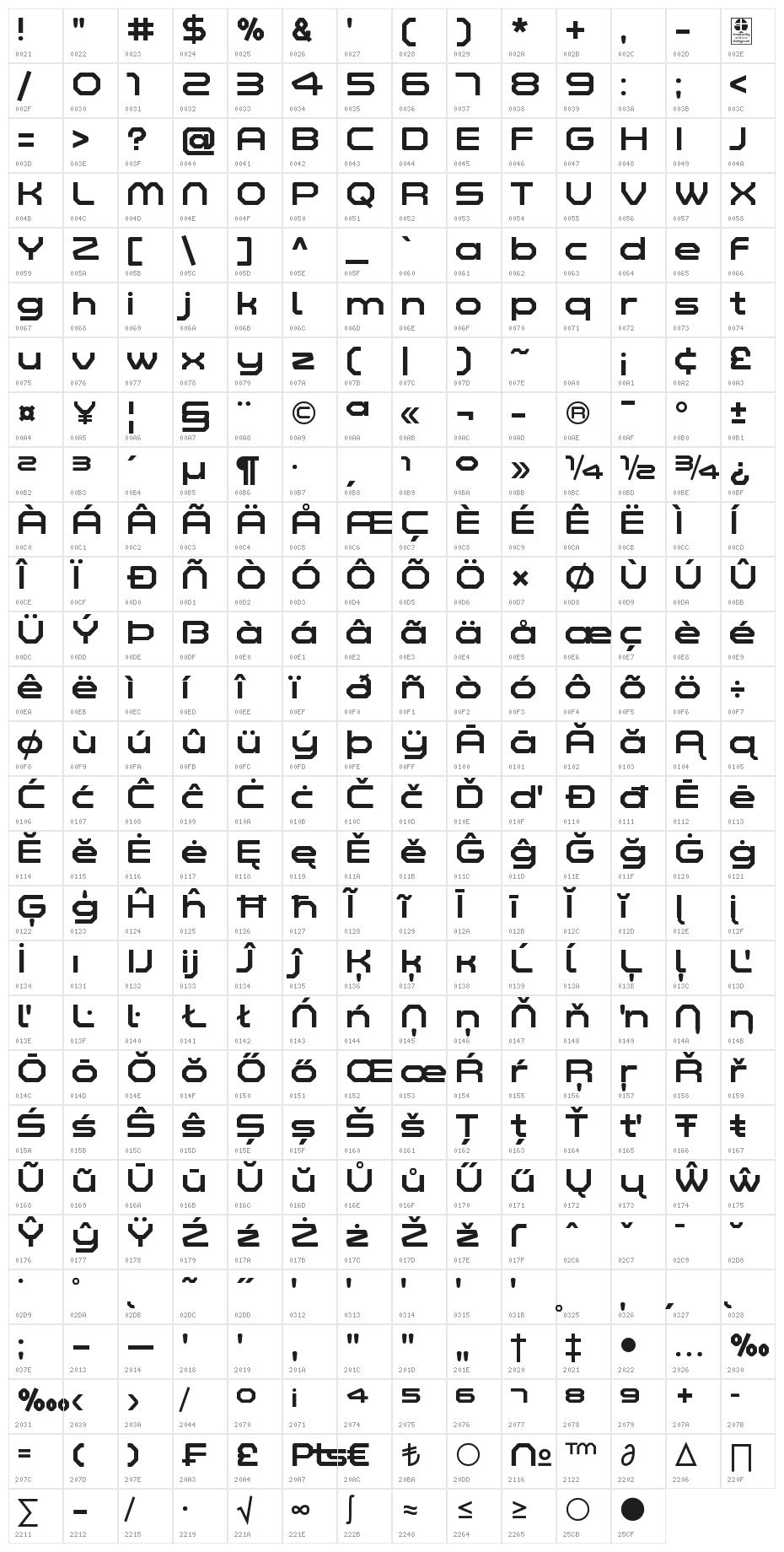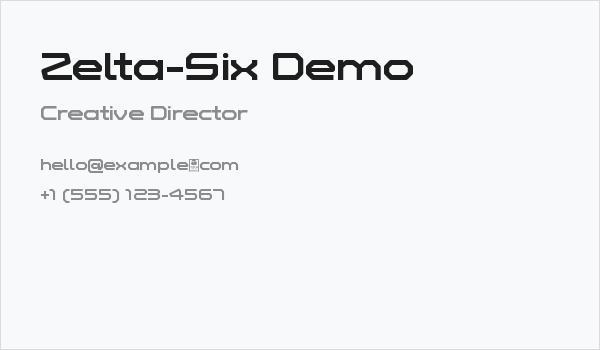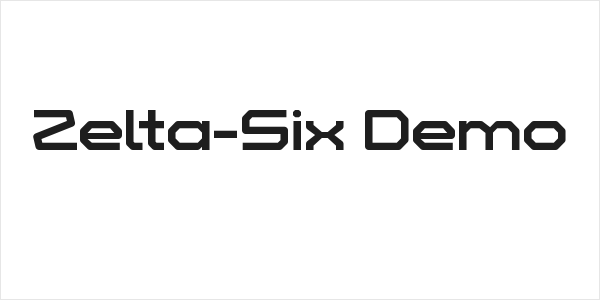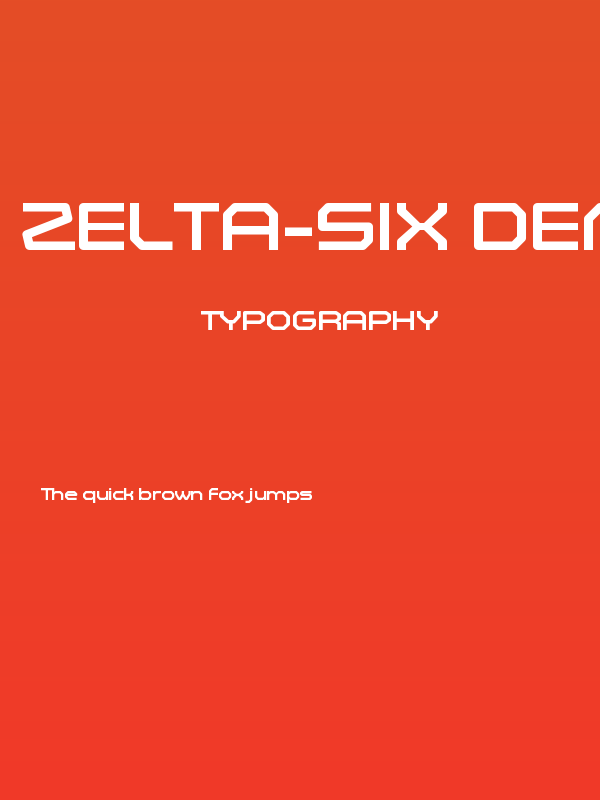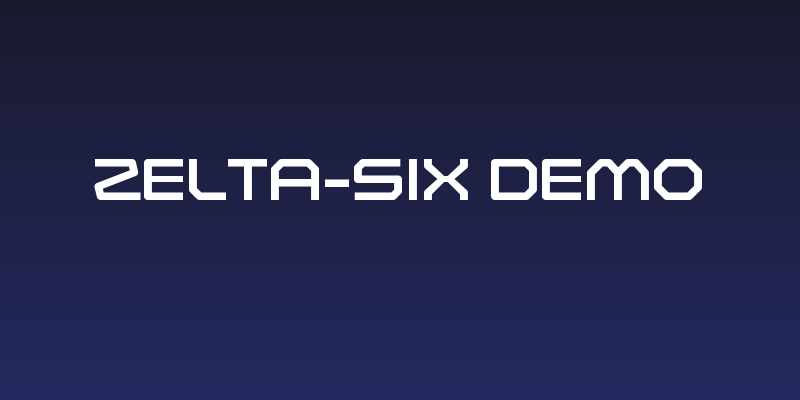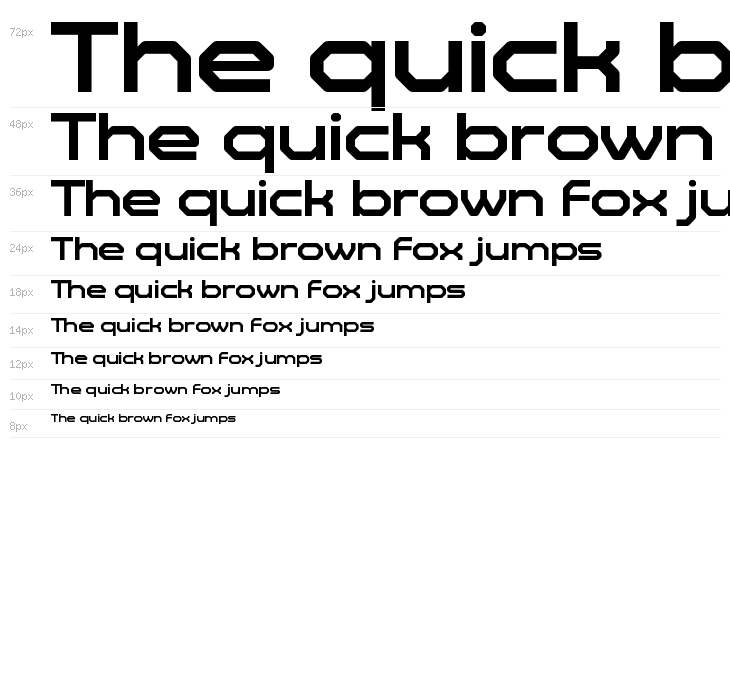
Zelta-Six Demo Font
This font features a geometric and futuristic design, characterized by its angular and block-like letterforms. The uppercase and lowercase letters share a consistent style, with sharp edges and a uniform stroke width that gives it a modern and digital appearance. The numbers and special characters maintain this cohesive look, making it suitable for tech-oriented projects. Its unique style is both eye-catching and functional, ideal for creating a strong visual impact.
| Proposed Projects | Ideal for tech branding, digital interfaces, video game graphics, and sci-fi themed designs. |